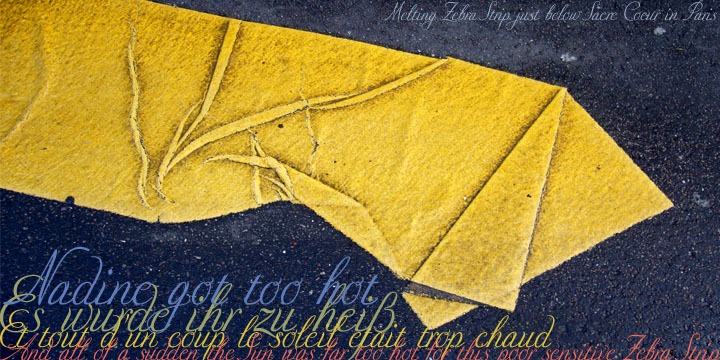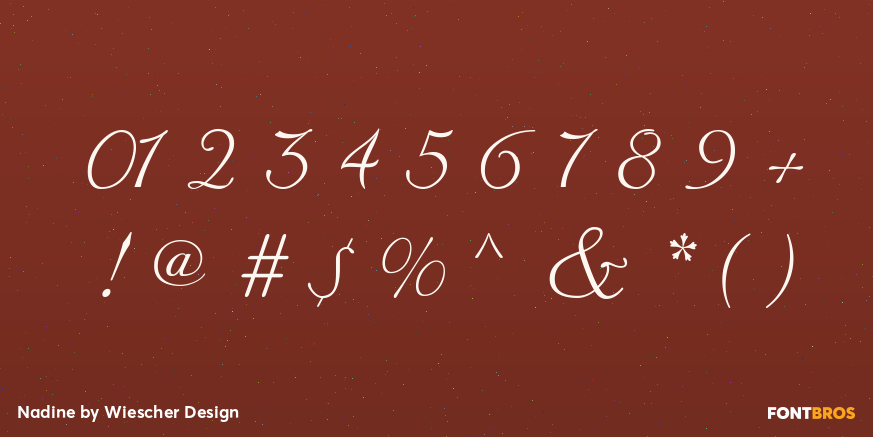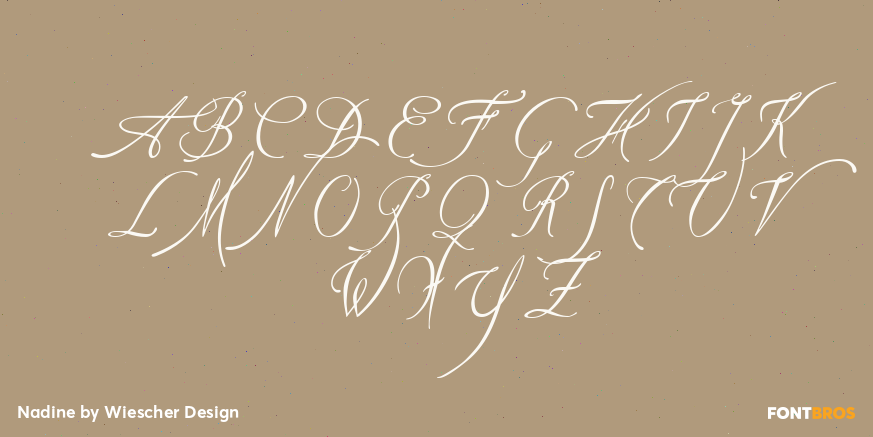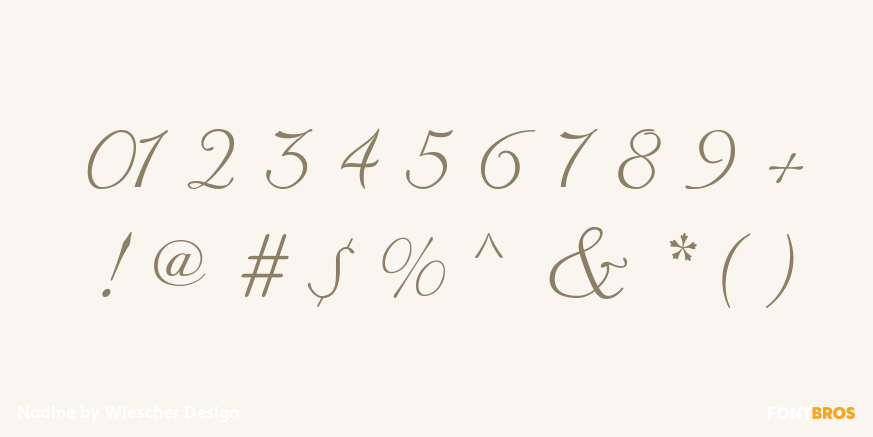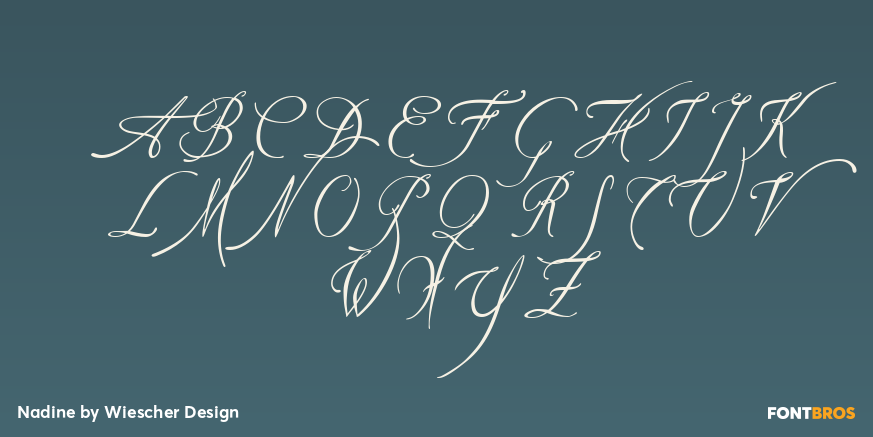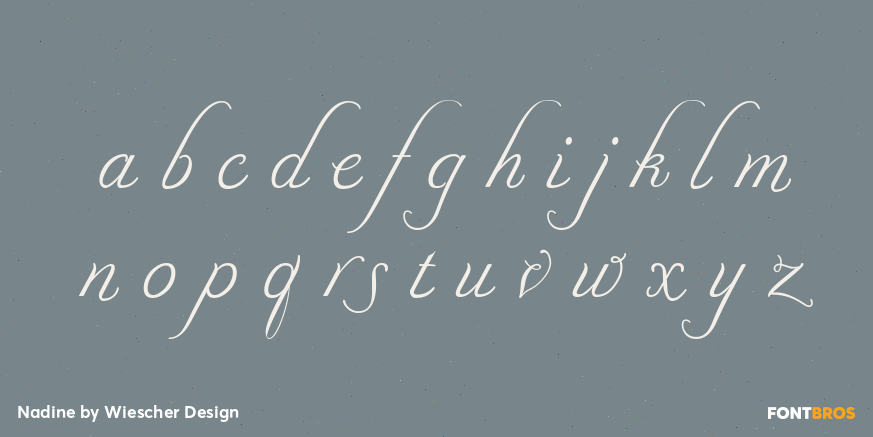
Nadine
Nadine is a very elegant Script. I based the design on a set of initials that Bernard Naudin designed around 1920 for Deberny & Peignot. I gave the font a name ?Nadine? because that sounds similar to Naudin.
Naudin is in my opinion one of the most underestimated designers of that time. Cassandre and Jackno were his colleagues at D&P but seemed to understand more about promoting themselves. Naudin was not designing fonts that were in fashion in those days, he prefered to do his own thing.
Since he only drew one set of initials I had to do the rest. I designed three versions to be used together.
First a Normal version with capitals that are not so elaborate and open lowercase letters; it is very useful for longer copy.
Second an Extra version whose capitals stick pretty much to the originals, but with slightly narrower and different lowercase letters as well as Medieval ciphers.
Third a StartEnd version, that gives you very elaborate capitals to start a text and lowercase end-letters to finish a paragraph with.
Only the Normal Script can be used on its own.
The Extra should absolutely be mixed with the Normal cut to get more variation.
The StartEnd cut can not be used on its own, the letters won't fit together.
All three cuts should always be used together.